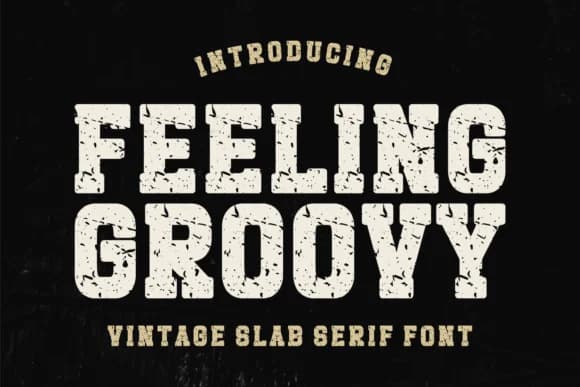
This font screams 70s and 80s nostalgia with a raw, unfinished edge that feels right at home in grunge design. Feeling Groovy, designed by Riman (7NTypes), is a slab serif that pulls no punches when it comes to character and visual impact.
The heavy, distressed letters truly shine in vintage band posters, album artwork with a gritty vibe, retro vinyl record packaging, and DIY concert flyer designs where authenticity matters far more than polish. Apparel graphics, greeting card designs, and editorial magazine spreads all get an instant injection of attitude and personality. Boutique coffee shop menus and independent record store signage feel lived-in and deliberate when this typeface sets the visual tone. Rough around the edges but unmistakably intentional, every letterform carries the weight of decades past without seeming forced or trying too hard to impress.
The typeface supports multilingual typography, including solid coverage for Eastern European languages, which opens real doors for regional design campaigns and international projects that need this particular retro flavor and voice. When you need to pair it with other fonts, a geometric or humanist sans-serif works perfectly for body text and smaller elements, letting each typeface define its own distinct role without fighting for attention. You'll find Feeling Groovy on Creative Fabrica ready to bring authentic retro grit into your next project.
- Sturdy, Confident, Feeling Groovy Font
Feeling Groovy Font is a slab serif font that shines as a display or heading face. Pair it with a clean sans-serif or serif font for body text β the contrast creates a clear hierarchy while the two styles stay balanced and easy to read.
Feeling Groovy Font